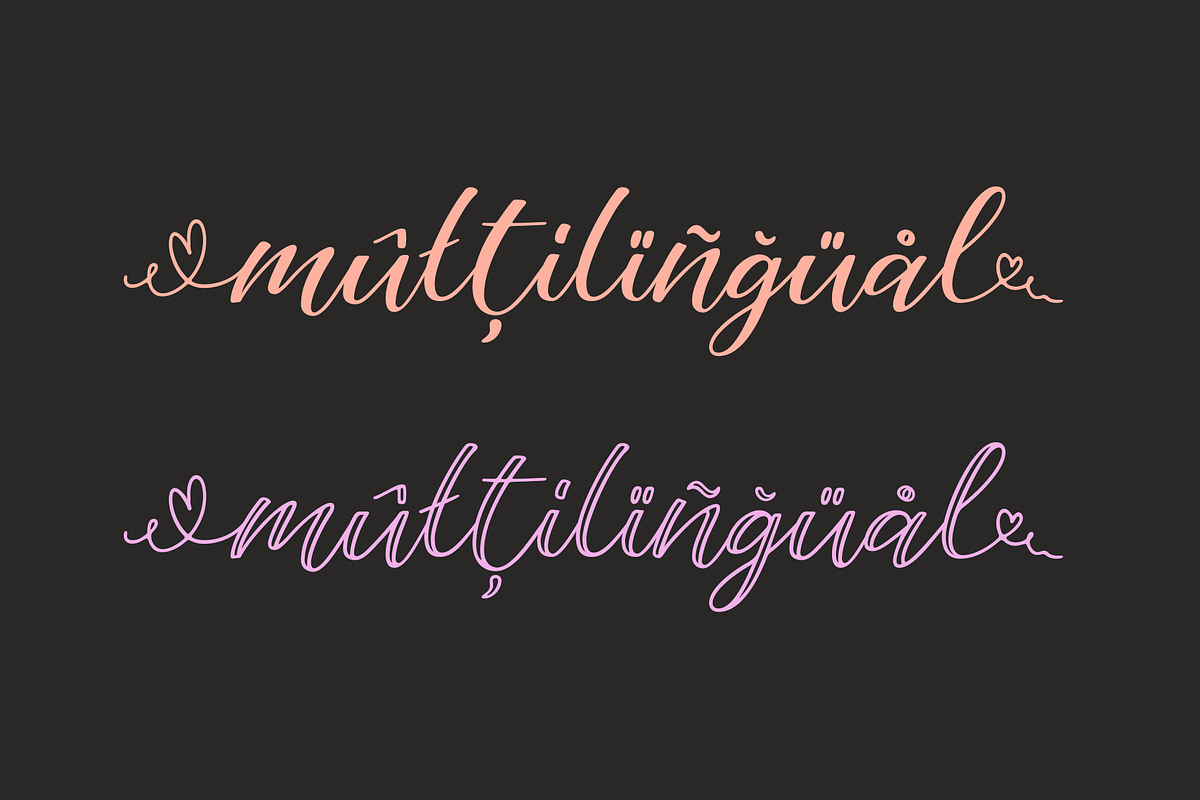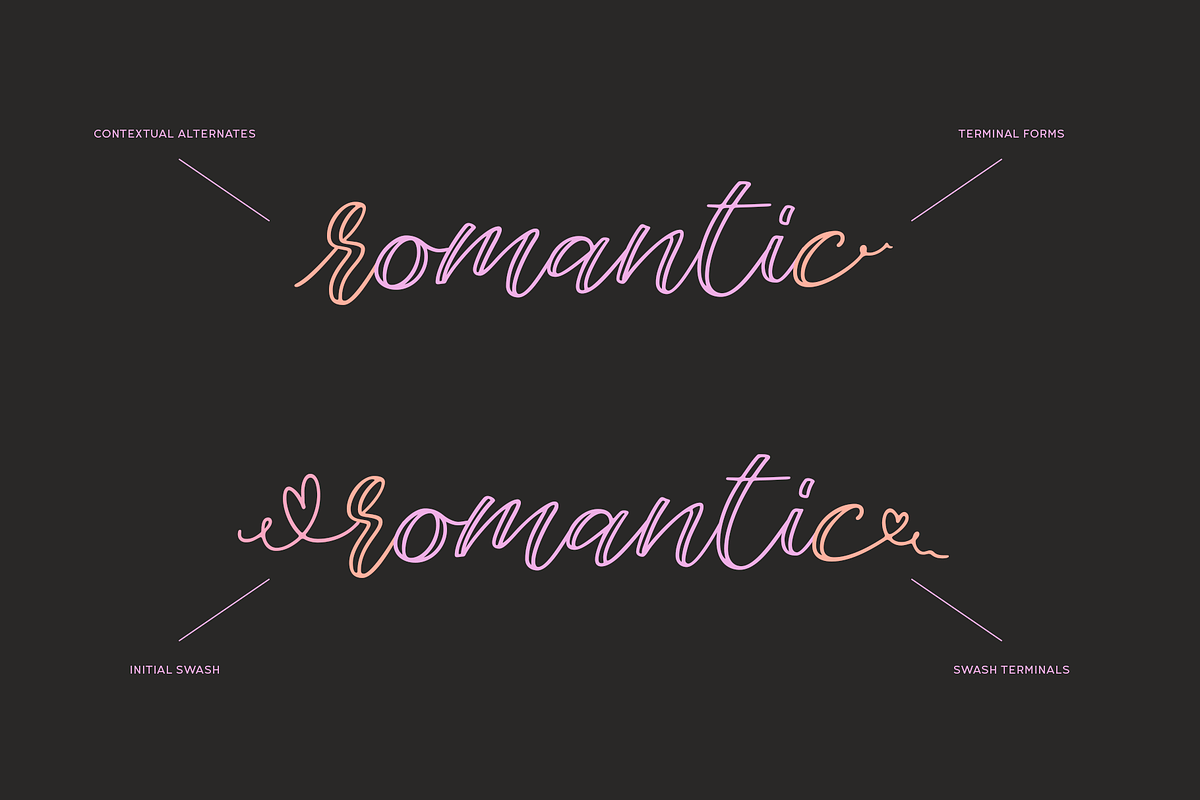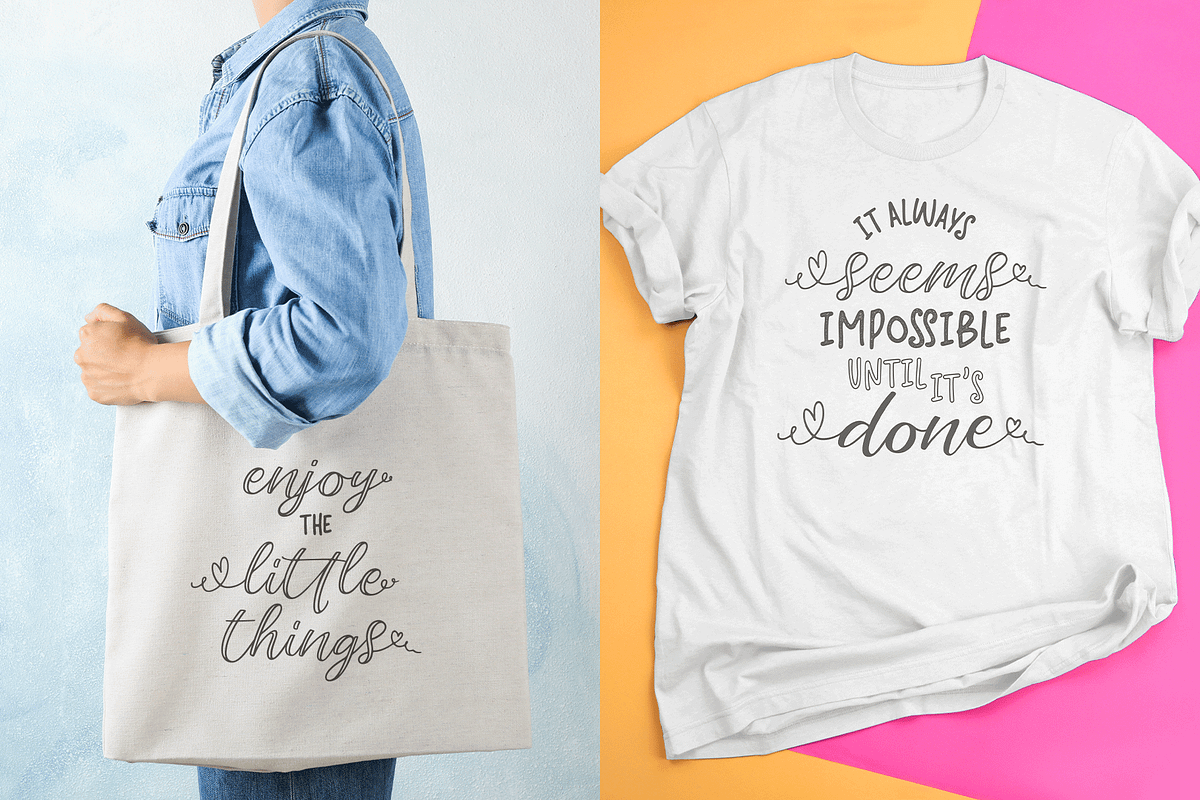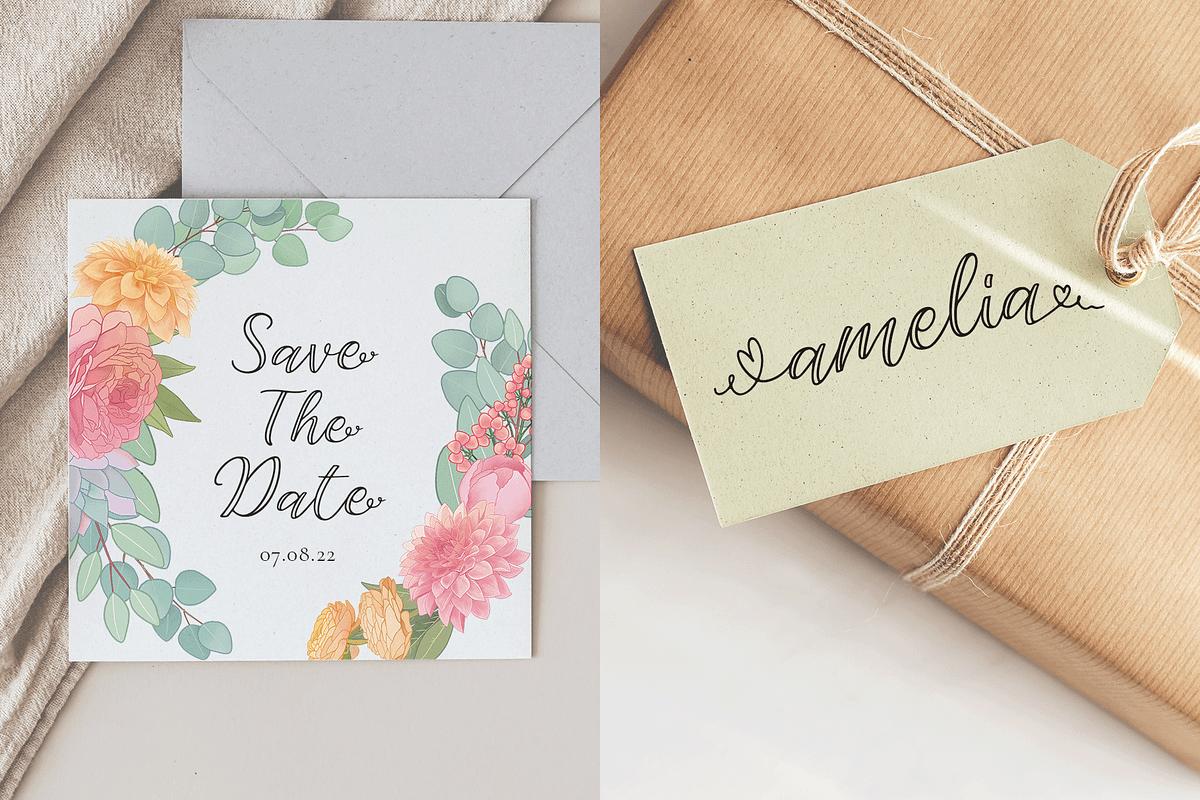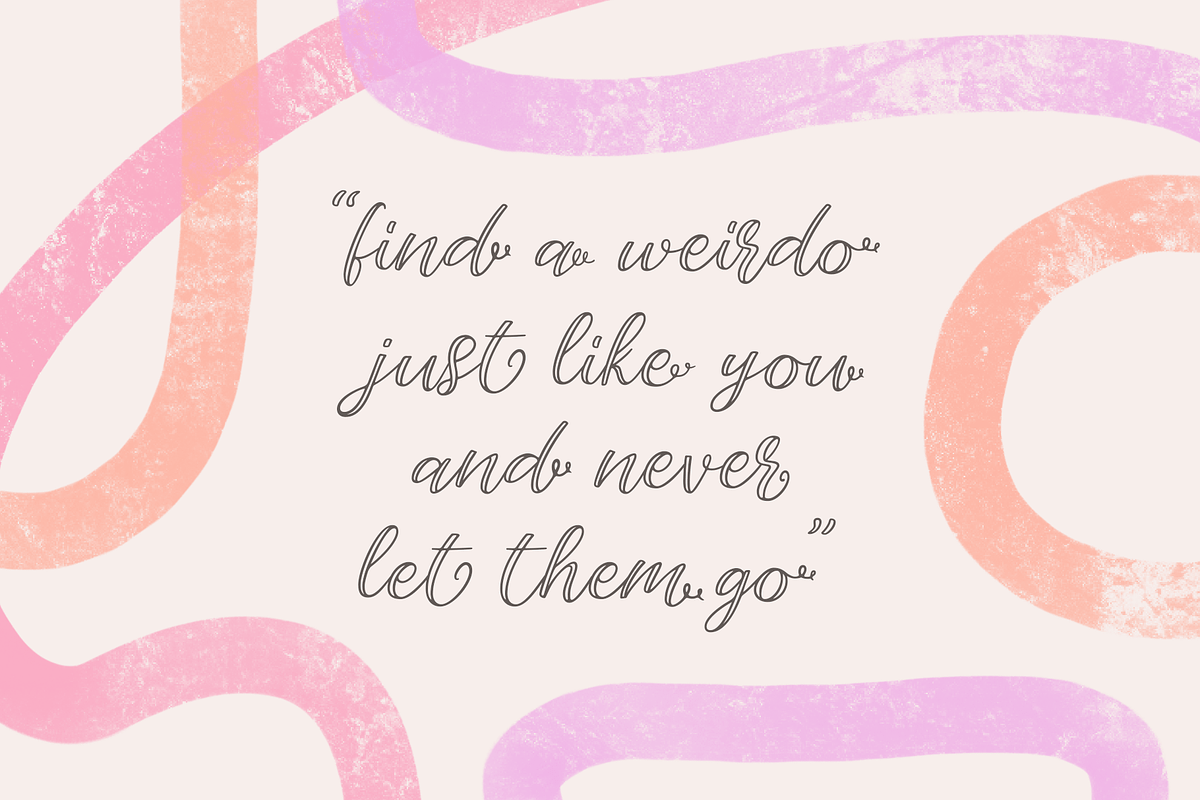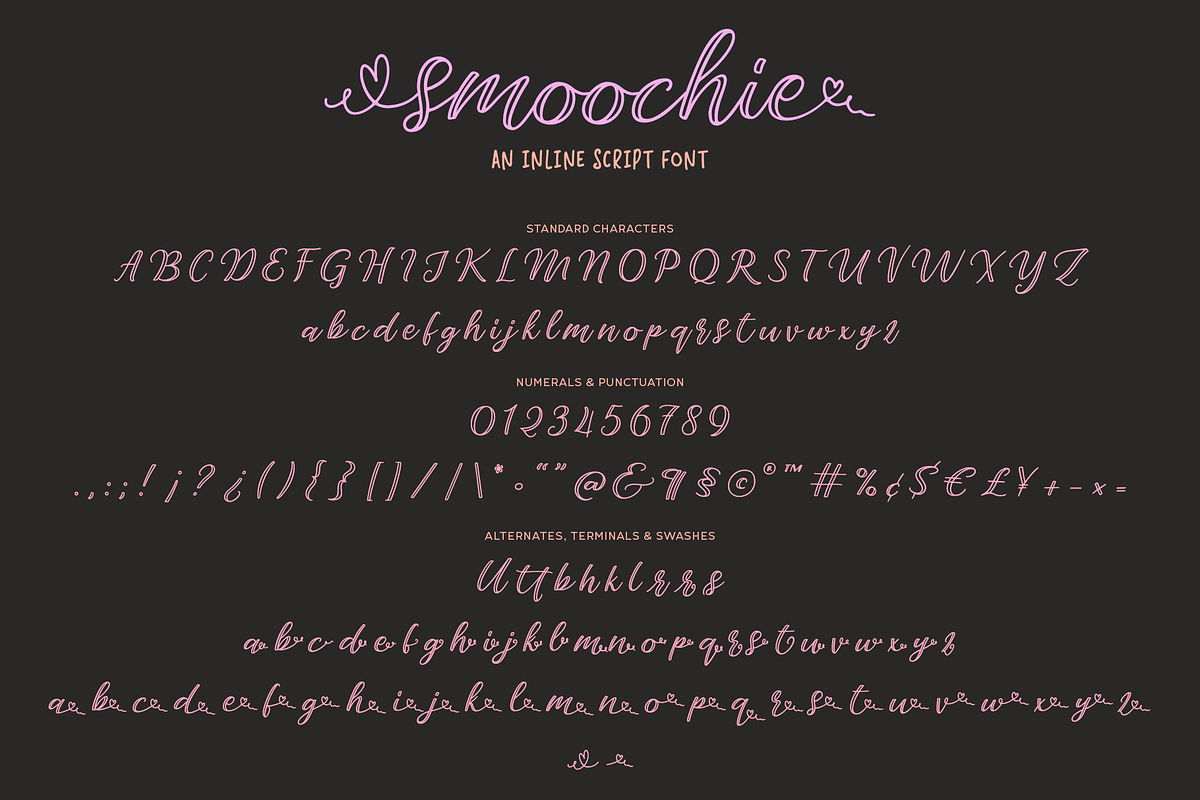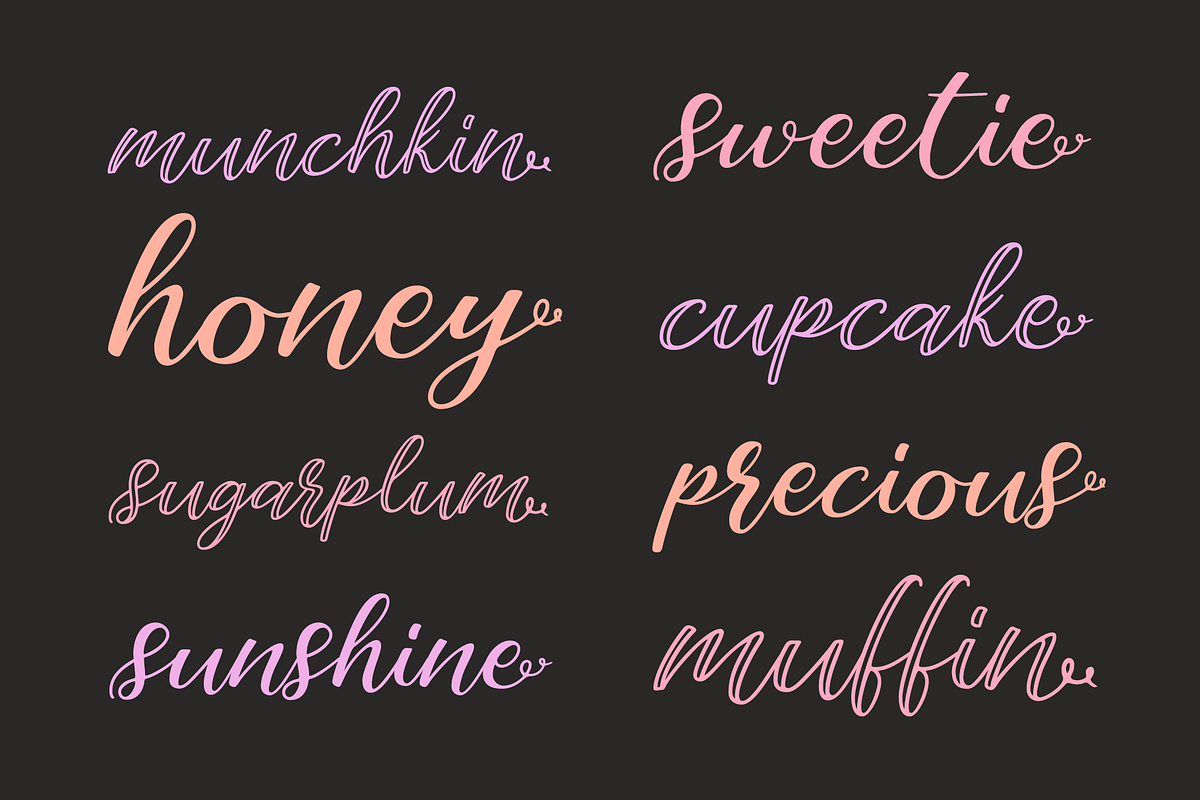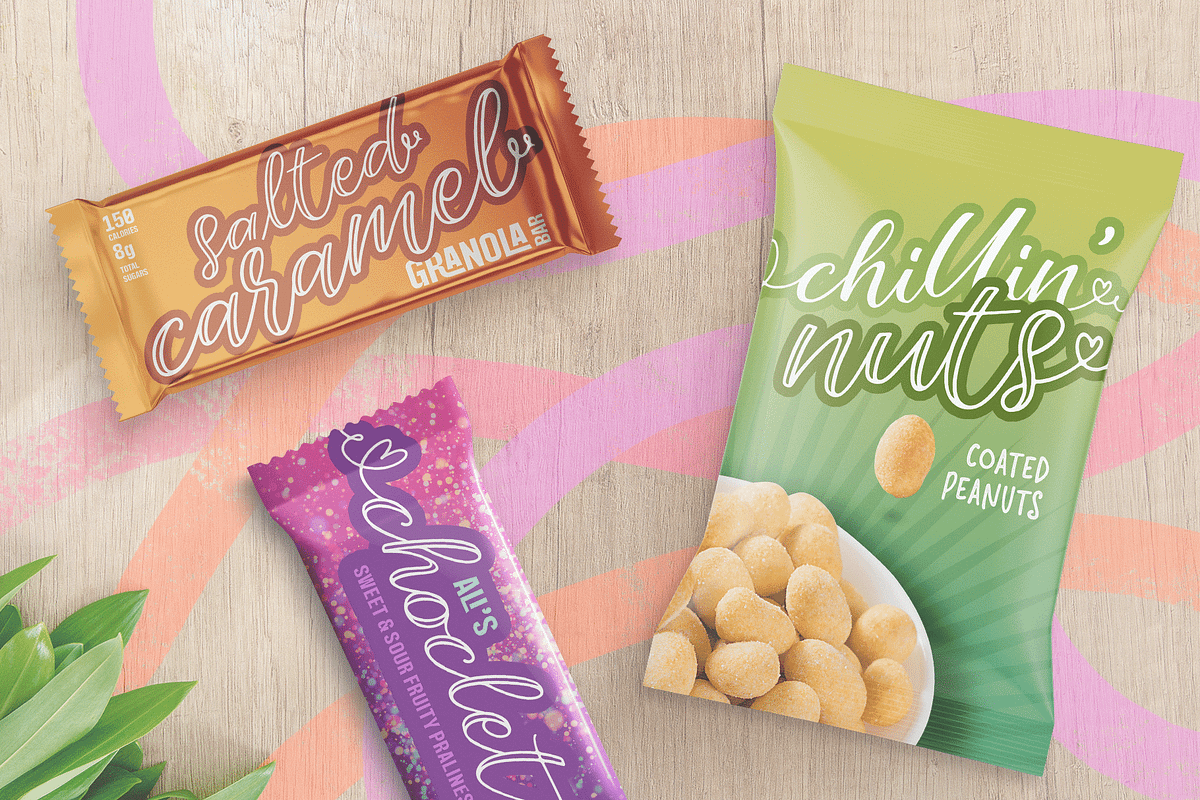
Smoochie | An Inline Script Font
Smoochie is a fun inline script font with curly terminals and heart shaped swashes. It’s cute, playful and expressively feminine.
Regular version is also included.
- Upper Case and Lower Case Letters
- Ligatures, Terminals and Swash Terminals